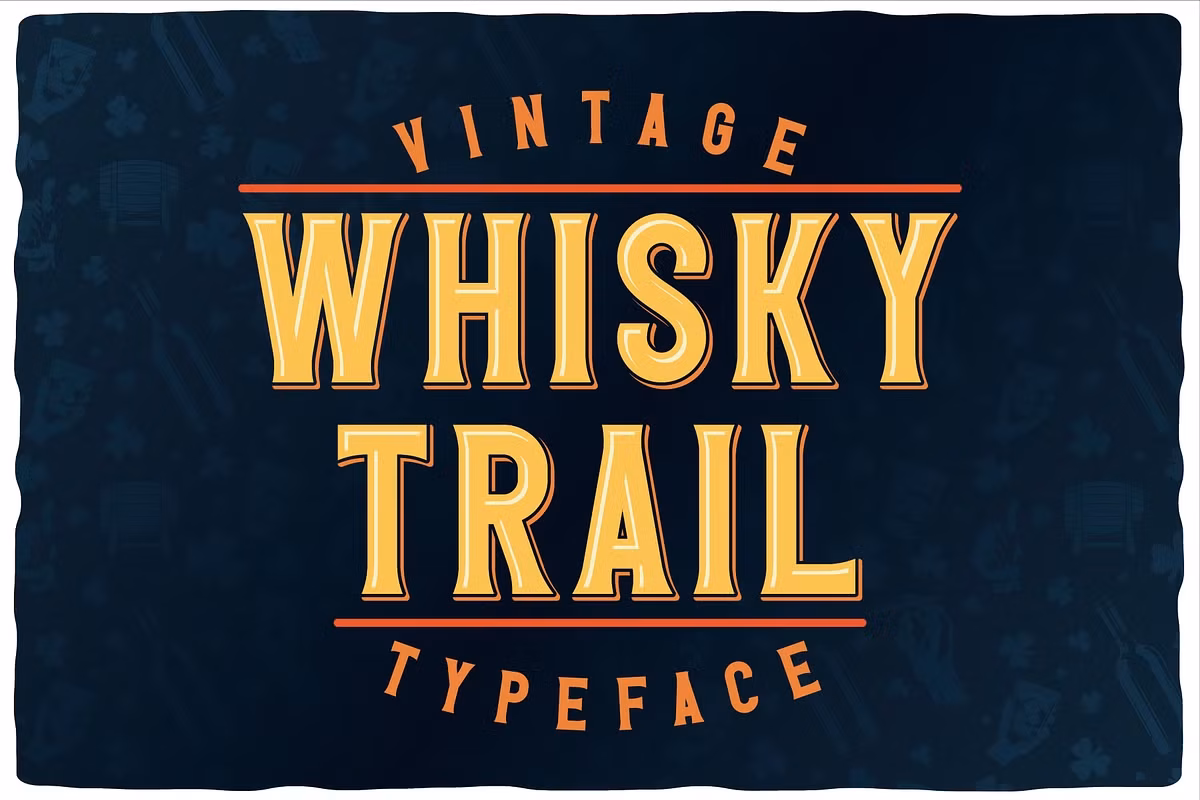
Whisky Trail Font Free Download is a rugged and vintage-inspired display typeface that captures the spirit of the old west and classic Americana. Please note: you must purchase this font for commercial use, but you can test it through a free download. With its bold serifs, weathered character, and strong presence, Whisky Trail is perfect for bar logos, liquor labels, posters, apparel design, and rustic branding projects.
This font brings a handcrafted, adventurous vibe to your designs—ideal for anything that needs a bold, heritage look. Whether you're creating packaging for a small-batch whiskey or a western-themed event flyer, Whisky Trail Font Free Download adds authenticity and grit to every letter. Fully compatible with Adobe Illustrator, Photoshop, Canva, and more. Download it today for personal use and bring timeless character to your typography with the bold soul of Whisky Trail.